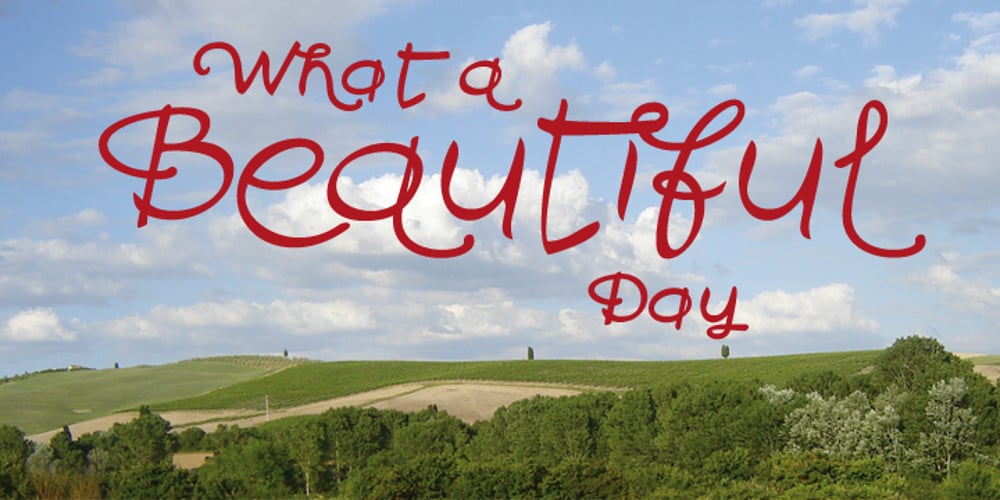
Pimpin Font Family was designed by Carine de Wandeleer and published by Eurotypo. Pimpin contains 4 styles and family package options. Pimpin, is a speedy cursive typeface that can express a fresh atmosphere of casual style. The Pimpin fonts come in four styles: Regular, Bold, Italic and Bold Italic; Included diacritics for CE languages. They were carefully hand-drawn, with different letter shapes, full of ligatures, and stylistic alternates that will provide great flexibility for your designs. Pimpin may fit perfect for advertising, packaging design, flyers, posters, children books and many other purposes.